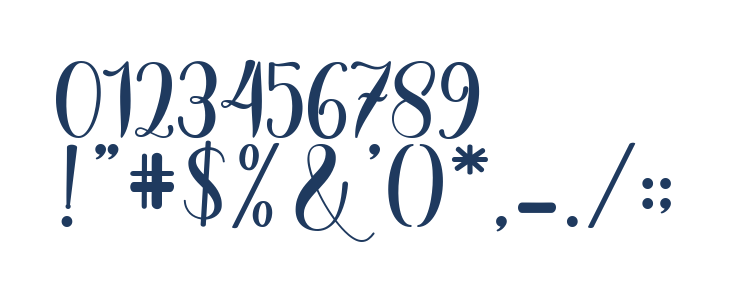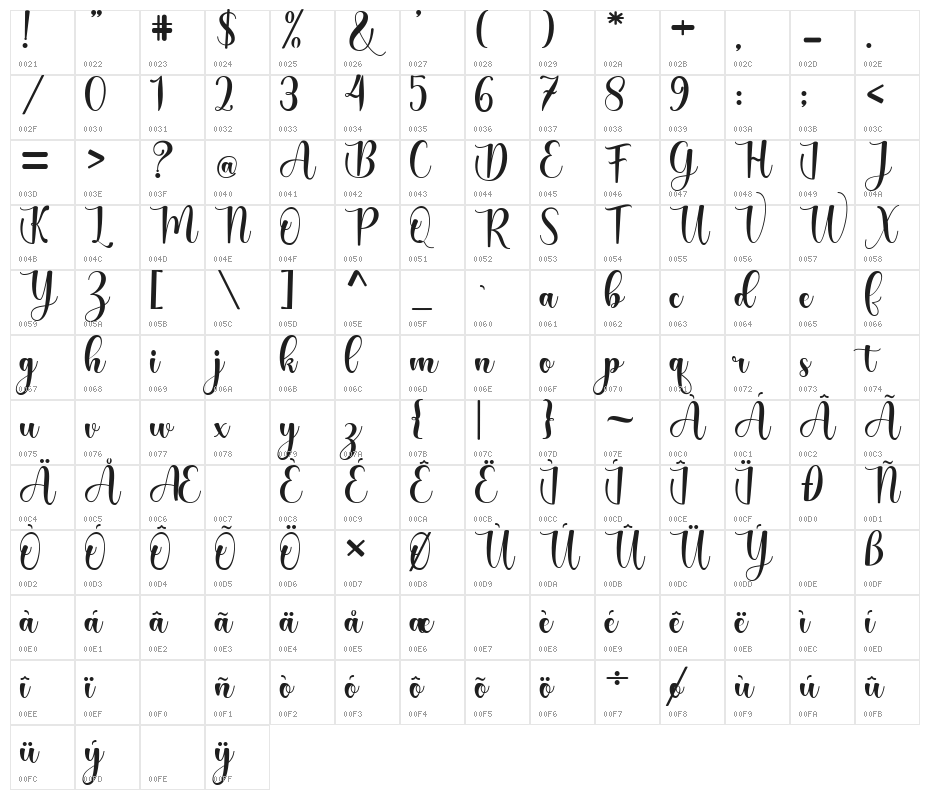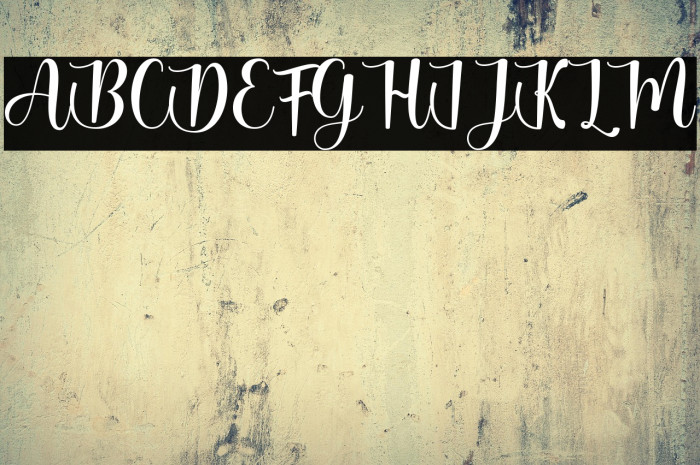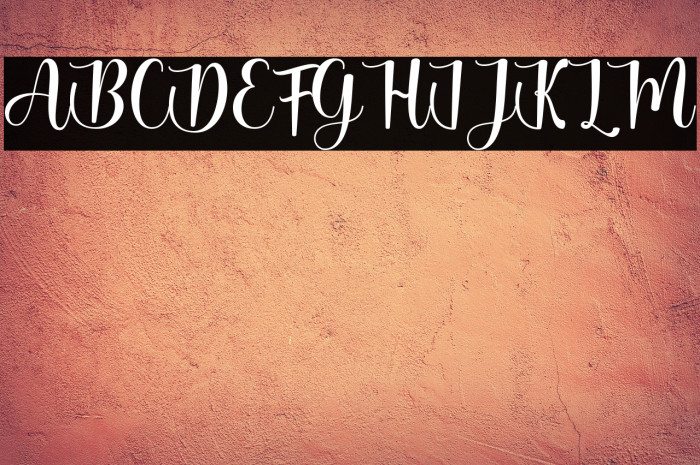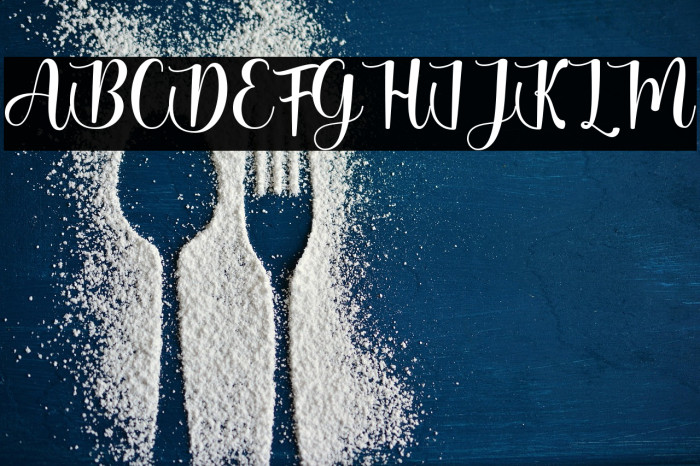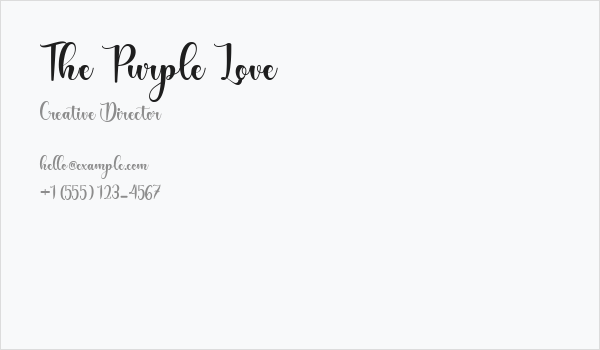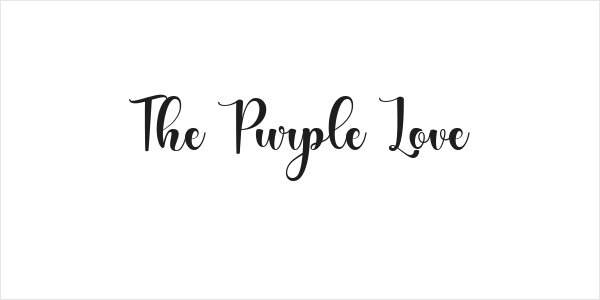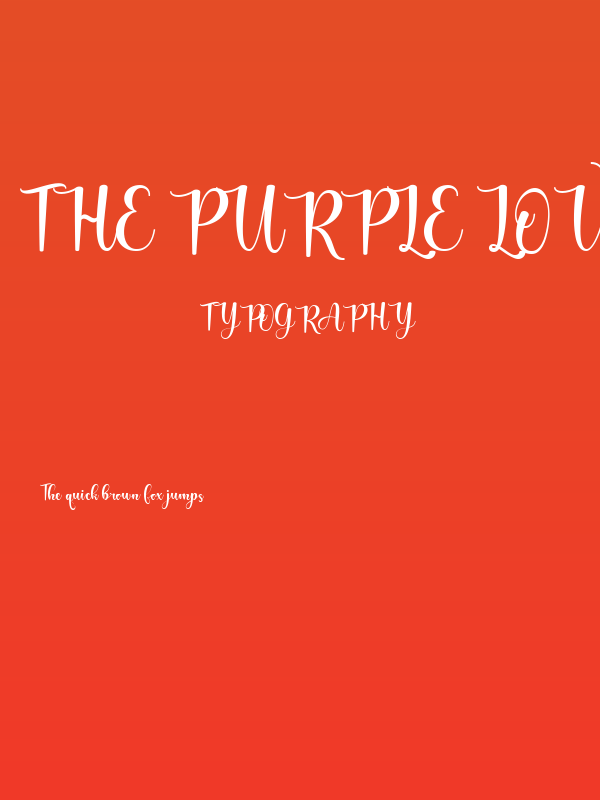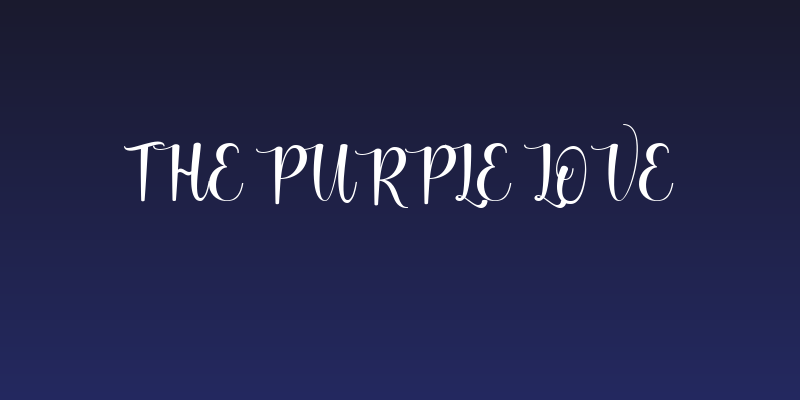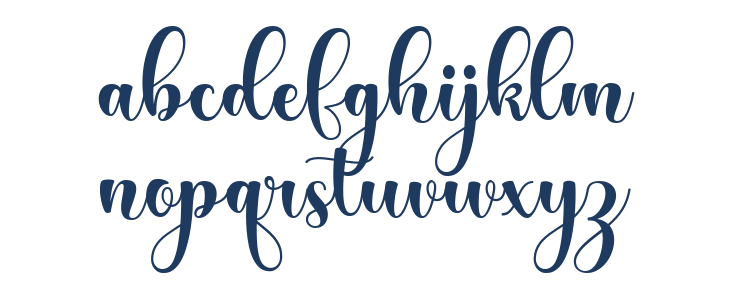
The Purple Love Font
The Purple Love Description
This font features an elegant and flowing script style, characterized by its smooth, cursive strokes and graceful curves. The uppercase letters are tall and slightly narrow, with distinctive loops and flourishes that add a touch of sophistication. The lowercase letters maintain a consistent flow, with rounded forms and connected strokes that enhance readability. The numerals are stylish and maintain the script's fluidity, while the special characters are creatively designed to match the overall aesthetic. This font exudes a sense of romance and charm, making it ideal for projects that require a personal and artistic touch.